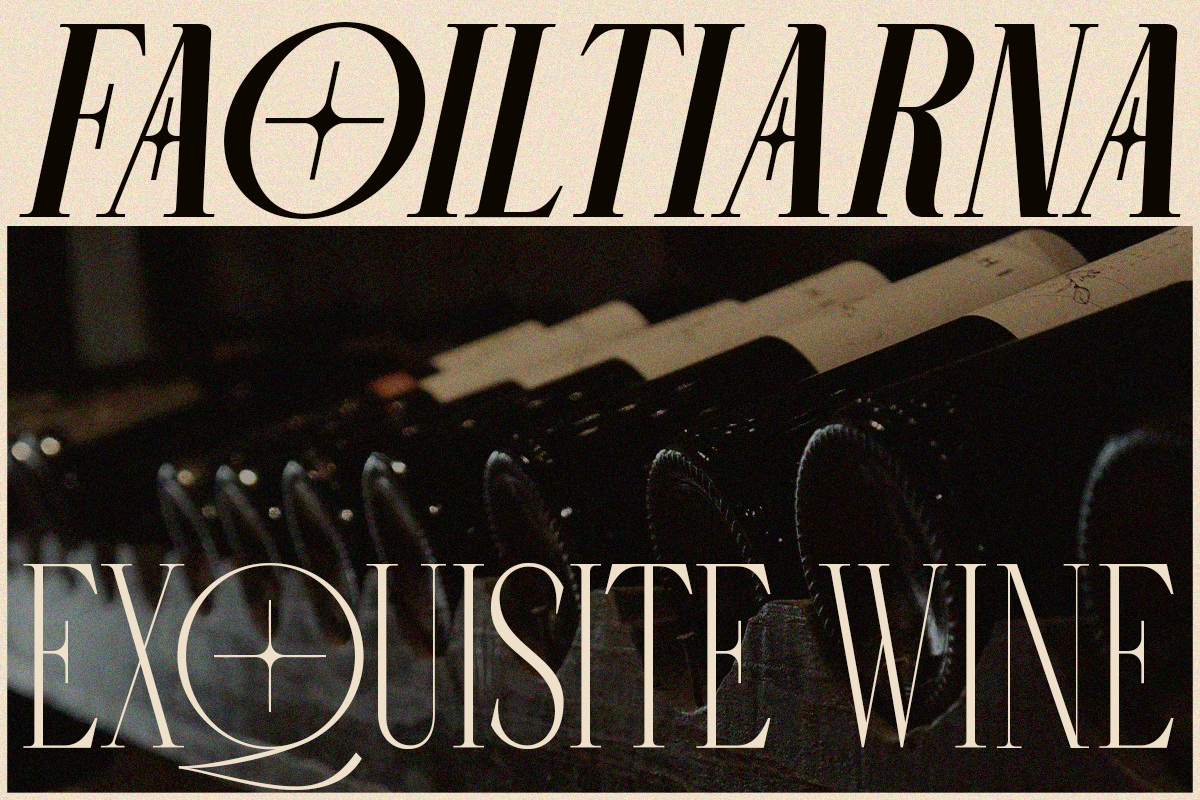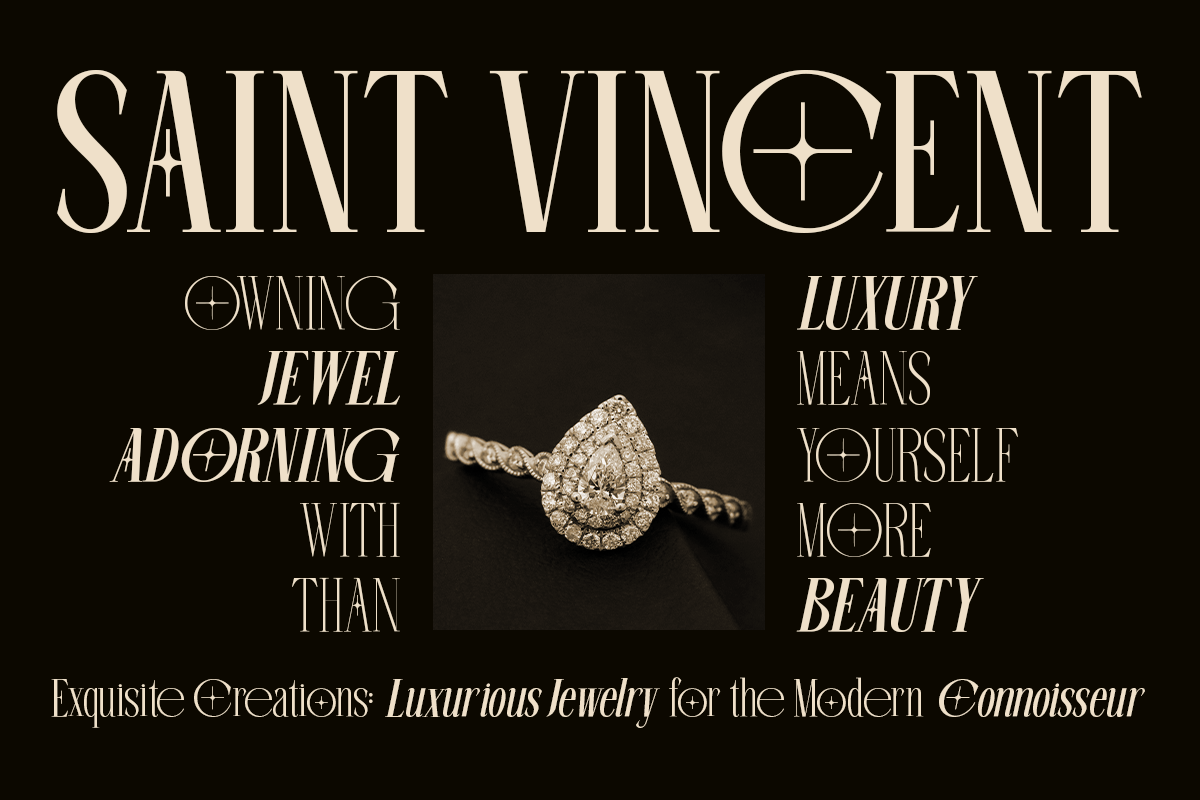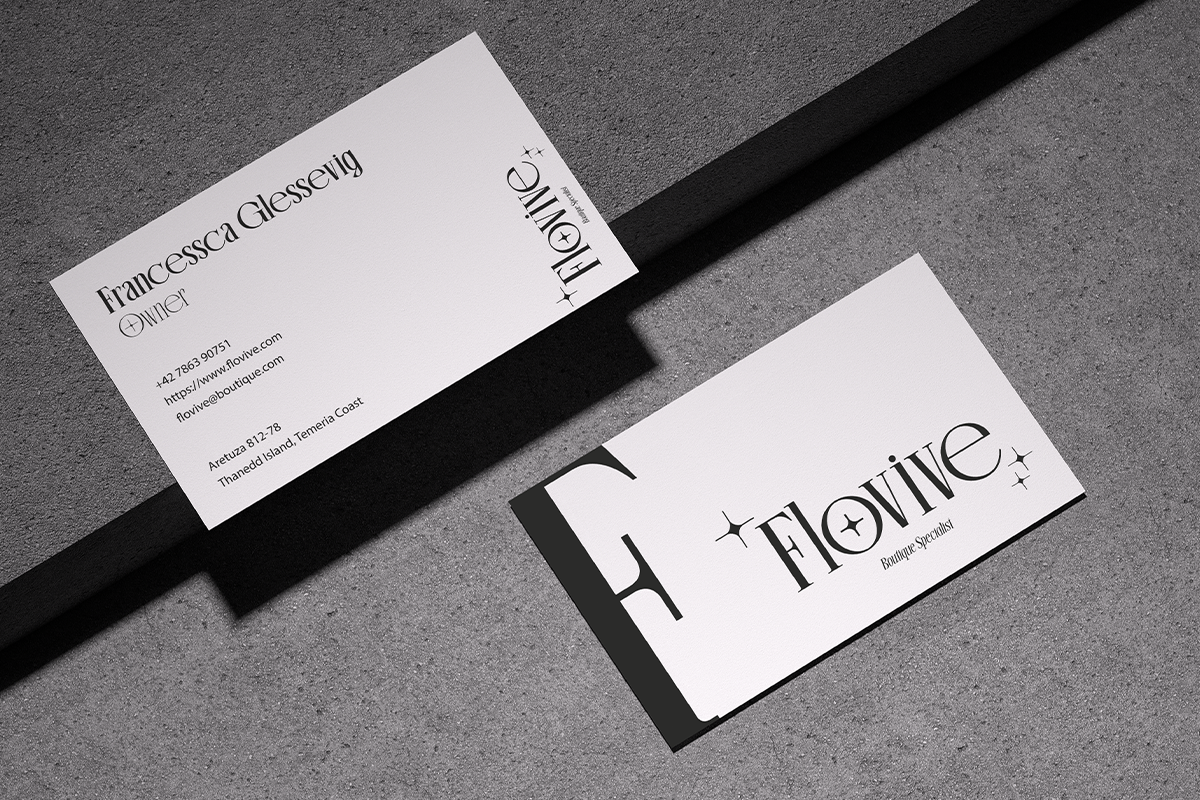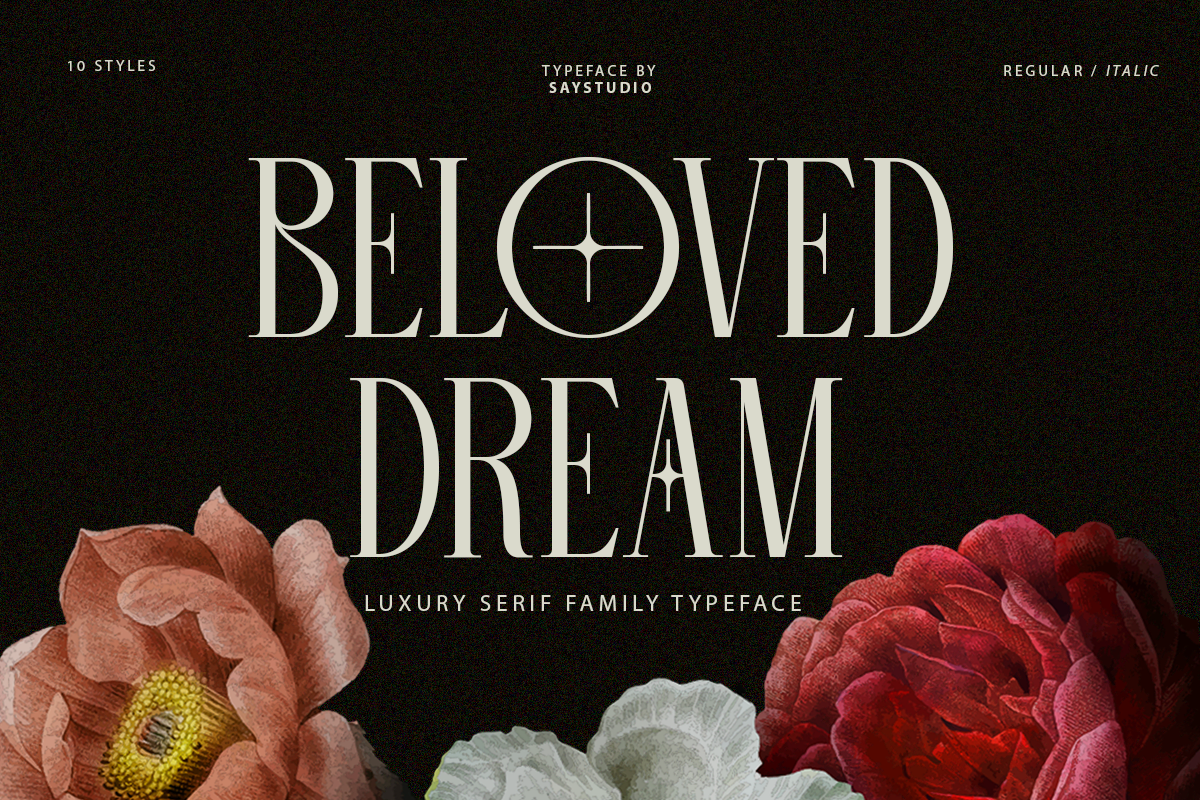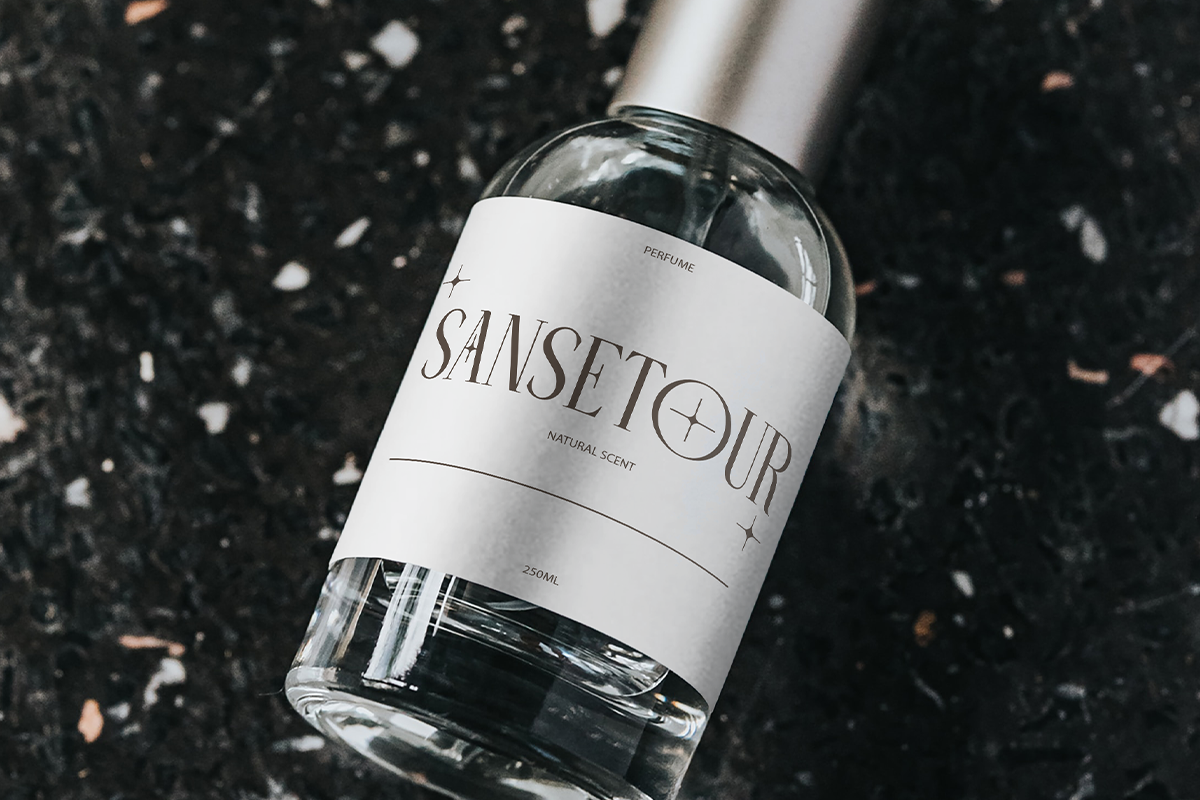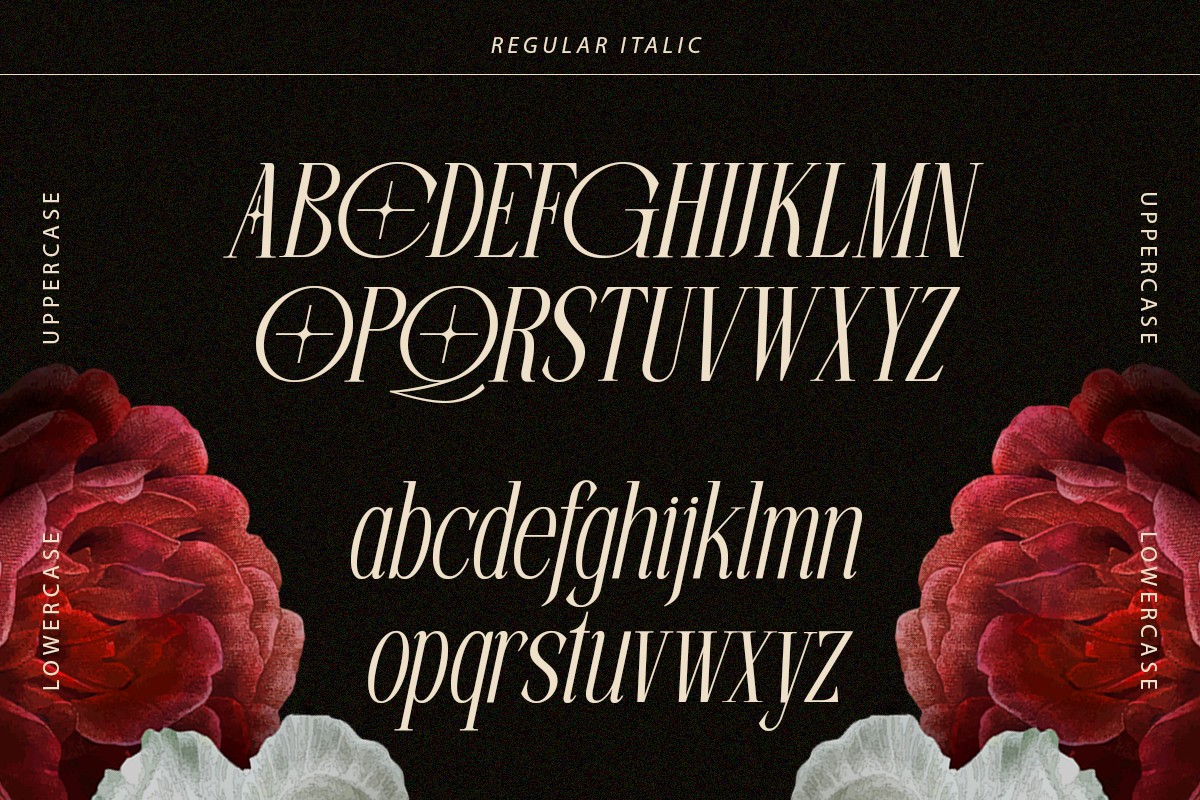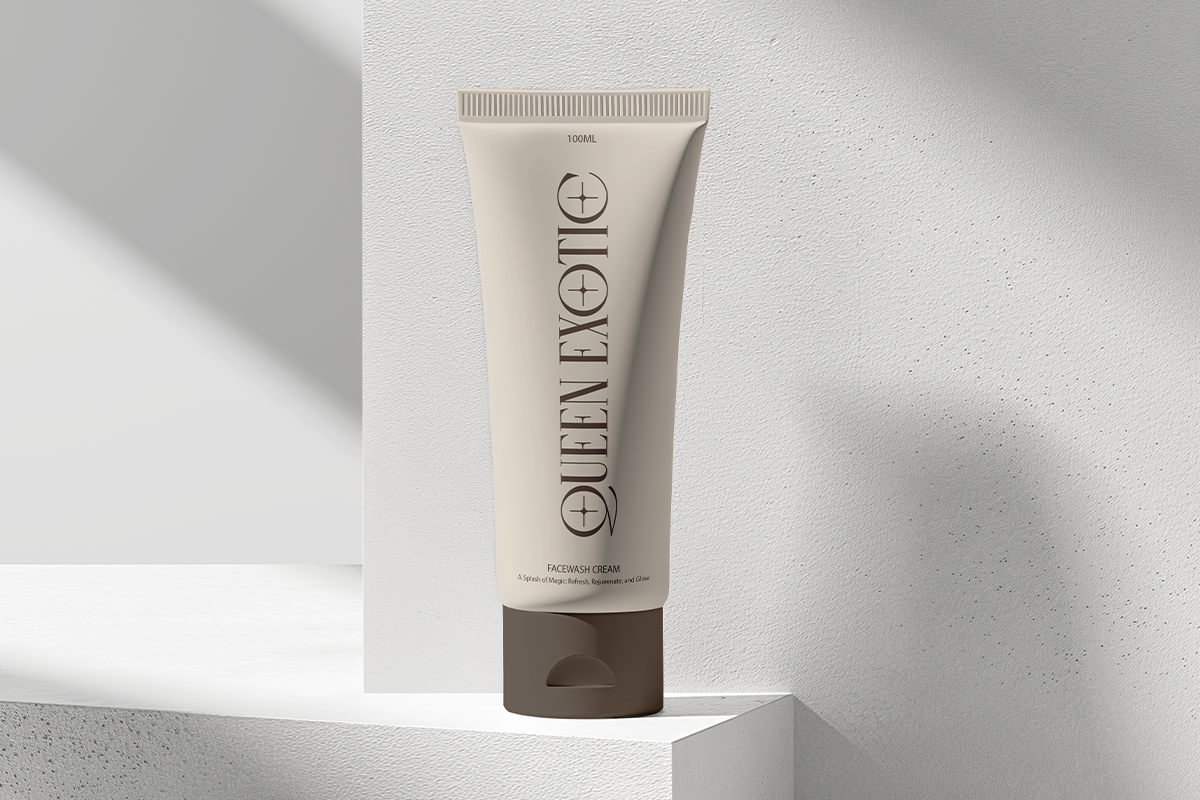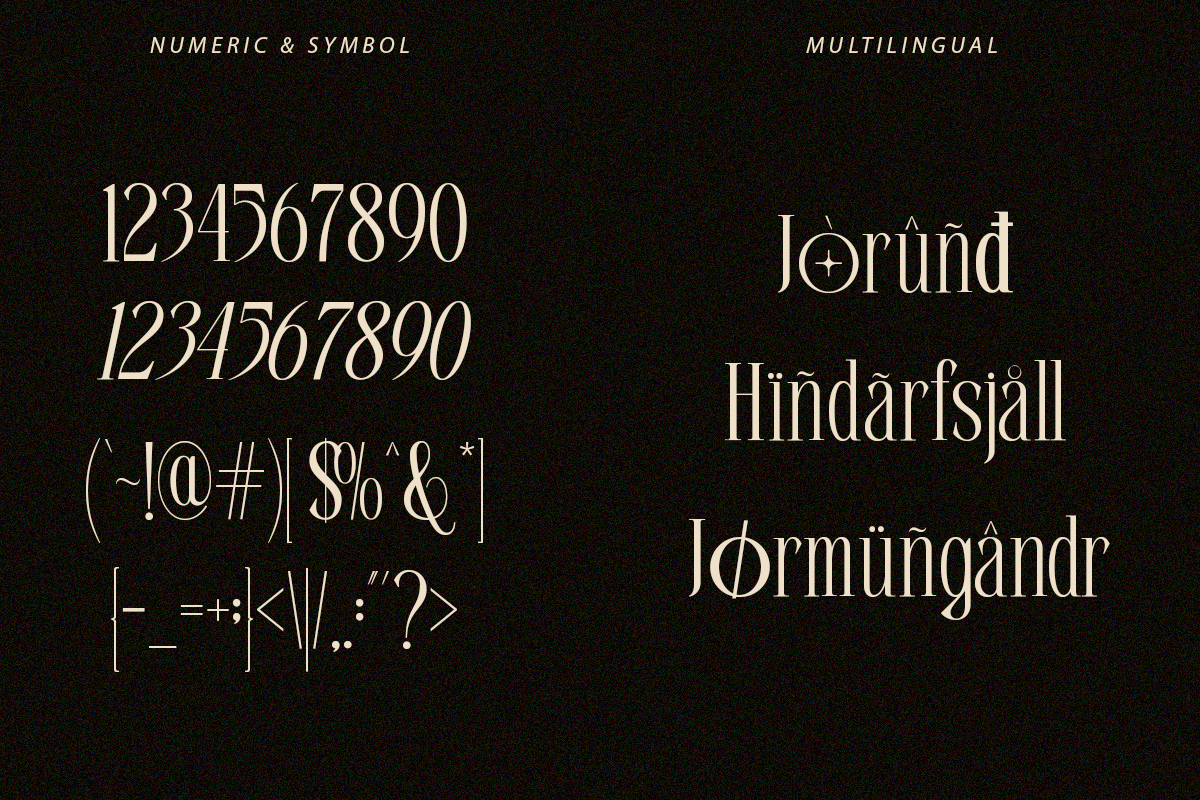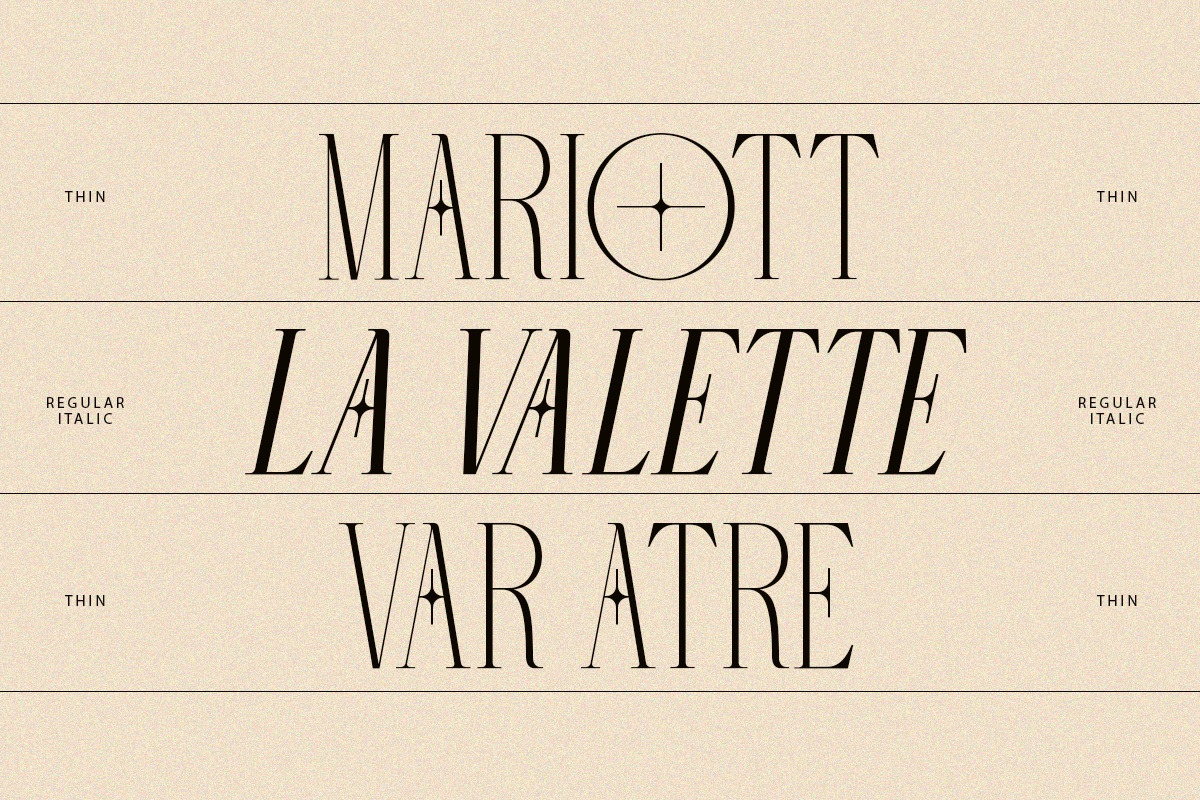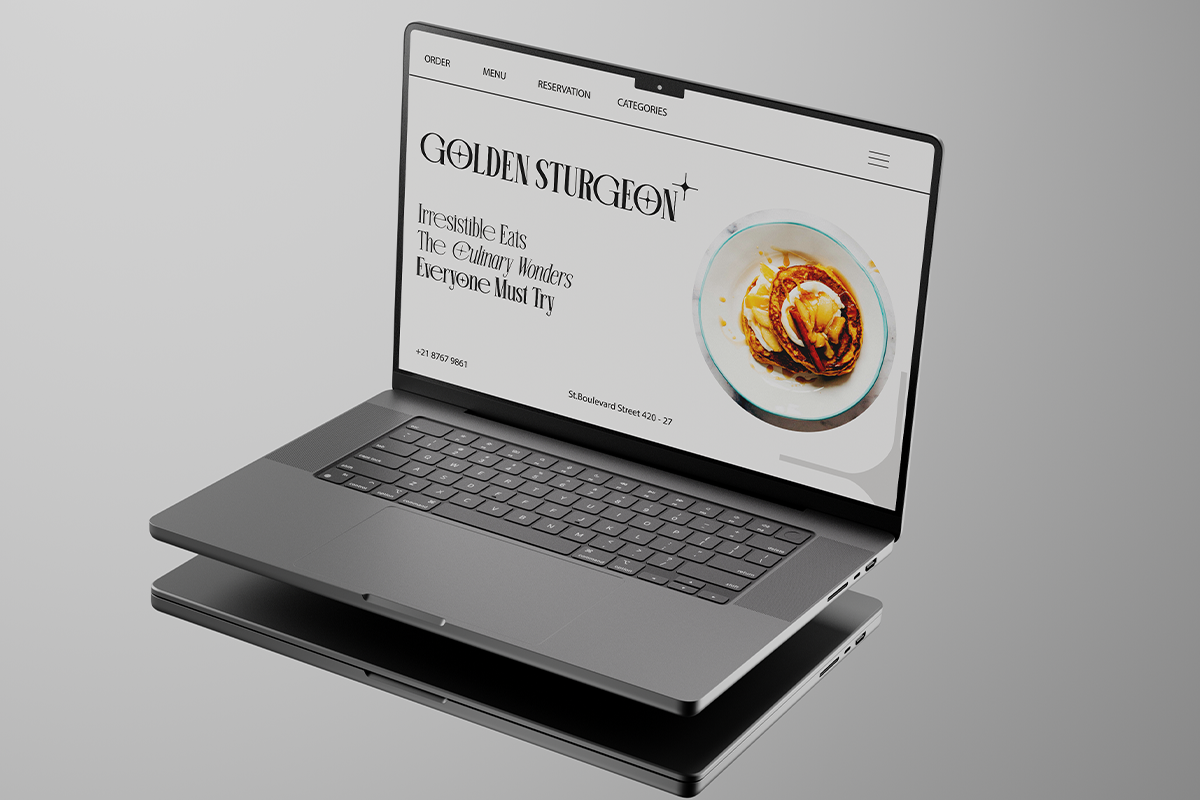
Beloved Dream - 10 Variable Font
Beloved Dream — Family of 10 fonts, including 5 different weights each with their own italic variation.
Beloved Dream will perfect for many project: fashion, magazines, logo, branding, photography, invitations, wedding invitation, quotes, blog header, poster, advertisements, postcard, book, websites, etc.
Uppercase & lowercase letters, numbers, punctuation Multilingual support